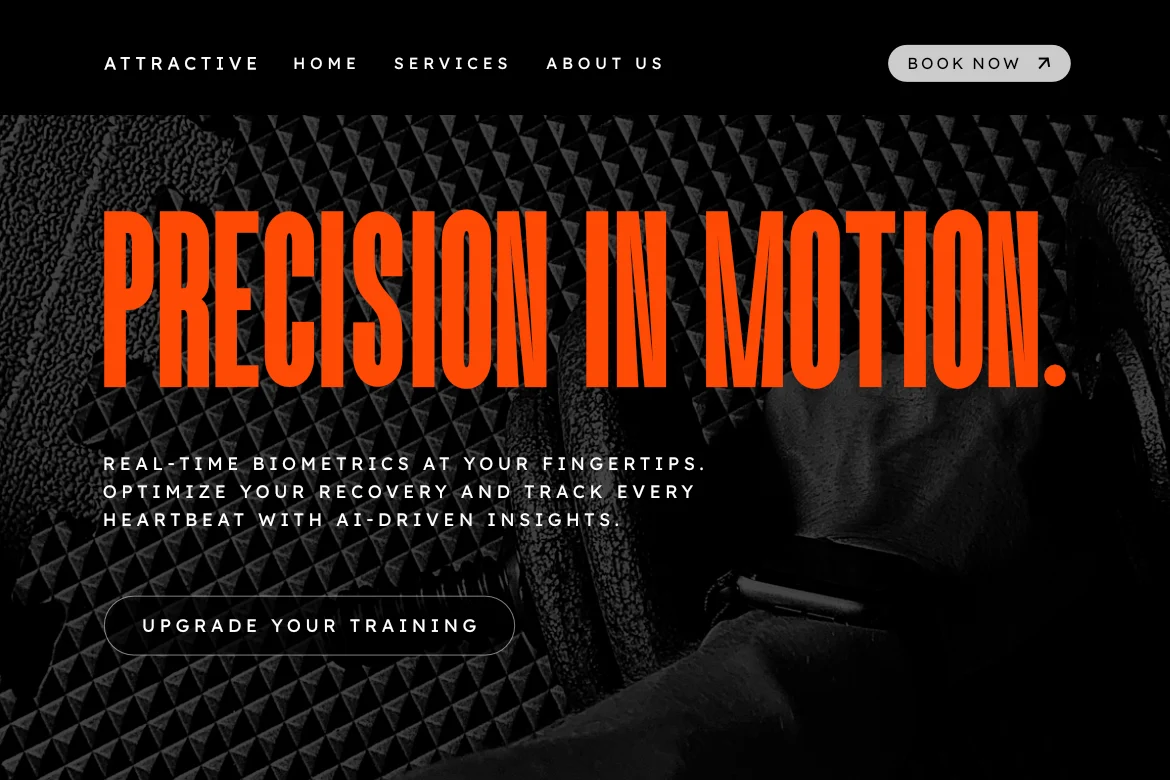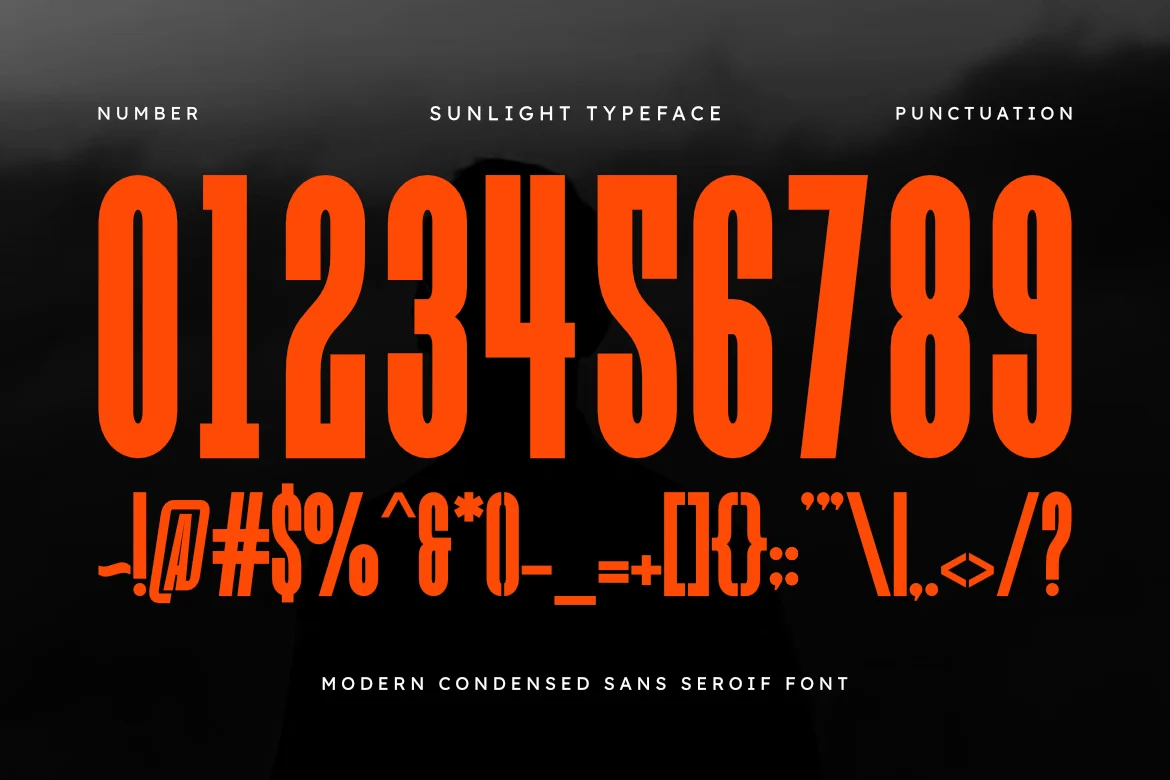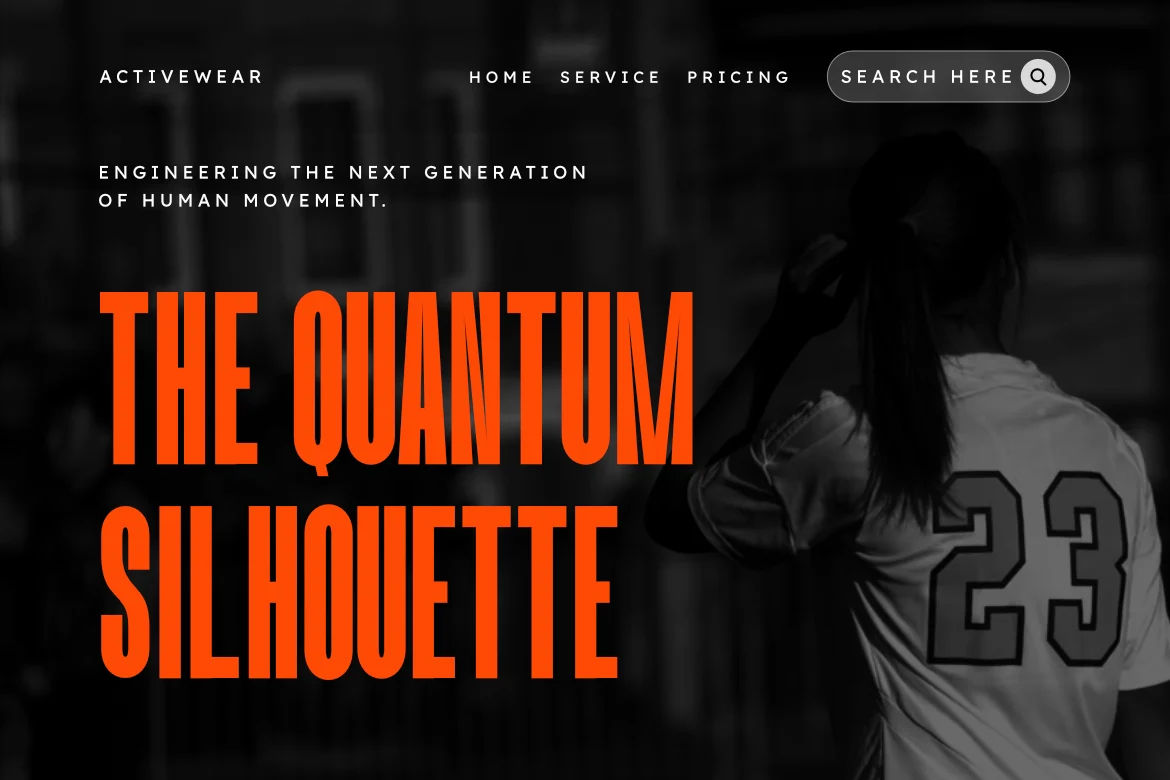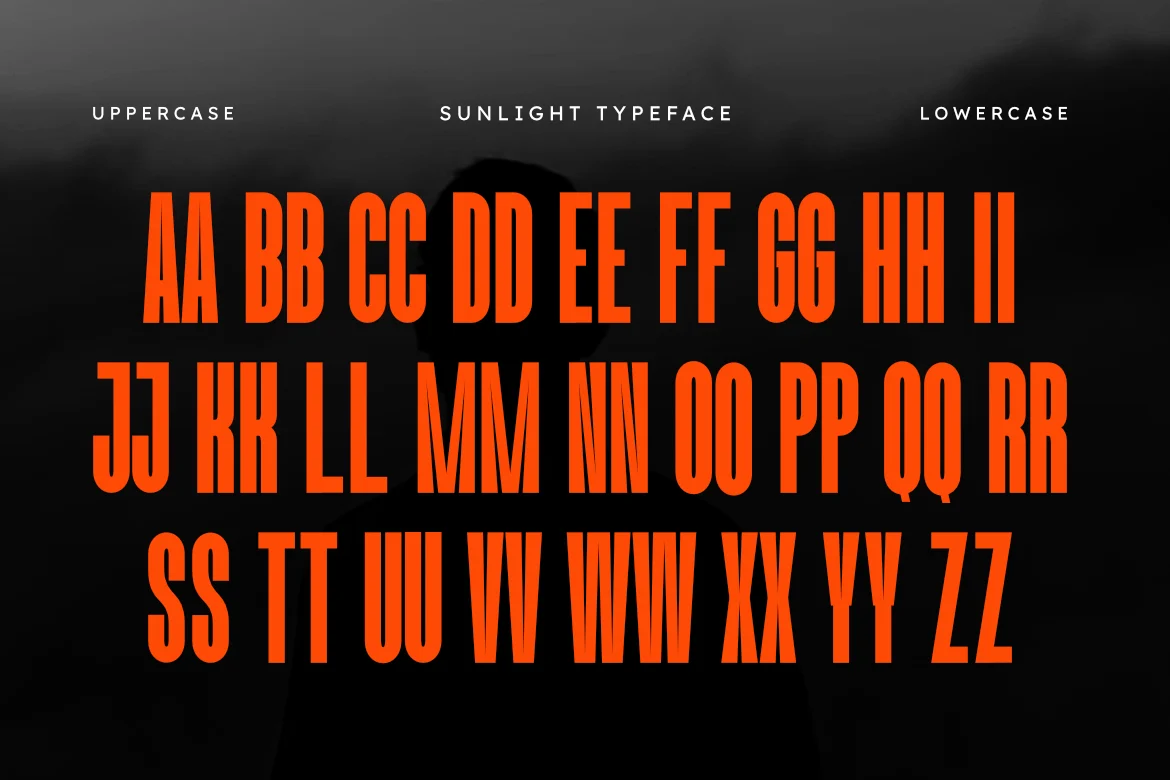
Sunlight – Modern Condensed Sans Serif Font
Sunlight is a sophisticated and powerful modern condensed sans serif font, thoughtfully designed to capture the essence of vertical impact and contemporary storytelling. With its tall, ultra-compressed structure and clean geometric lines, Sunlight offers a professional aesthetic that brings a touch of commanding presence to any creative project.
This font is the ideal choice for designers looking to add a professional yet high-impact touch to their work. Whether you are crafting a striking cinematic poster, a sleek technology brand identity, or bold editorial layouts, Sunlight provides a seamless blend of modern edge and digital authority.
Main Features:
- Modern Condensed Design: Optimized for a bold, space-efficient, and professional look.
- Clean Vertical Lines: Meticulously crafted for superior visibility and a high-end feel.
- Commanding Presence: Perfect for headlines, posters, and large-scale digital displays.
- Professional Aesthetic: High-end finish for modern tech, sports, and industrial branding.
- Multilingual Support: Ready for diverse global design projects.
Best Used For:
Cinematic movie posters, sports branding, automotive design, high-impact web headers, industrial packaging, and modern corporate identity.